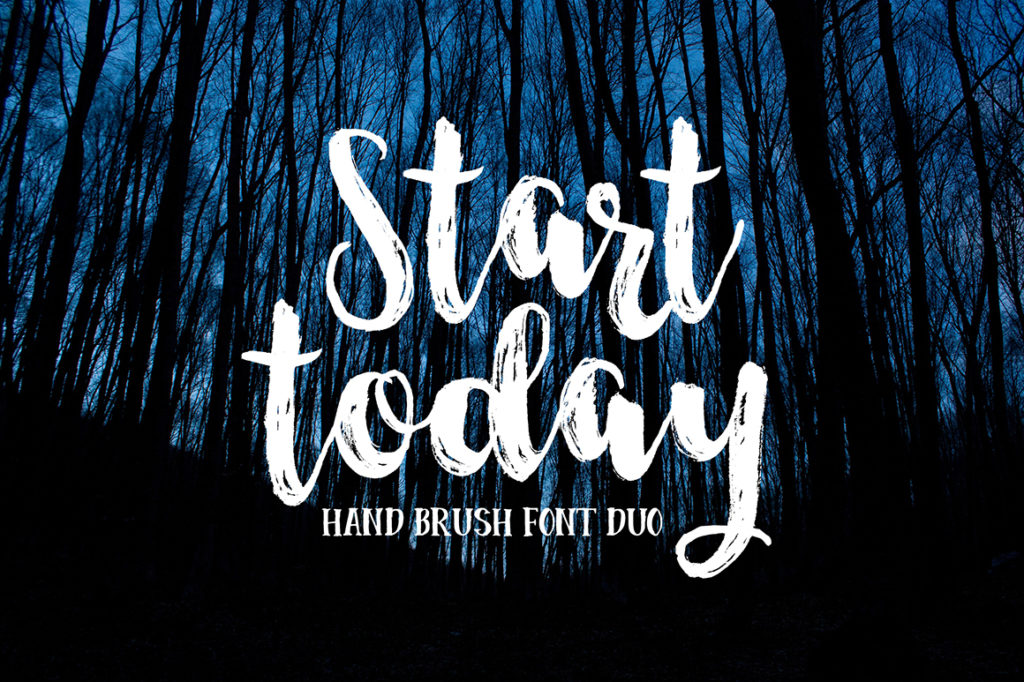
Introducing Start Today Font, a Remarkable Handcrafted Masterpiece:
Embark on a captivating journey of creative expression with Start Today Font, the script font family that ignites your imagination and sparks your creativity. Step into a world of endless possibilities, where your imagination roams free and your designs take flight.
With its captivating charm and effortlessly elegant style, Start Today Script effortlessly adds a touch of timeless beauty to your projects. Its carefully crafted handwritten strokes evoke a sense of warmth and authenticity, drawing your audience in with their genuine allure. Perfect for branding, invitations, and personal touches, Start Today Script transforms your words into heartfelt expressions that resonate with your audience.
Experience the versatility of Start Today Sans, the modern and clean counterpart to Start Today Script. Its crisp lines and sharp edges lend a contemporary touch to your designs, making it ideal for headlines, logos, and editorial projects. Let the clarity of Start Today Sans elevate your message and leave a lasting impression.
For those seeking a bold and impactful statement, Start Today Extra is the perfect choice. With its exaggerated strokes and dynamic presence, Start Today Extra commands attention and makes your words pop. From social media graphics to posters and marketing materials, Start Today Extra ensures your message stands out from the crowd.
With Start Today Font family, you'll discover a world of creative possibilities. Write your story with the elegance of Start Today Script, capture attention with the clarity of Start Today Sans, or make a bold statement with the impact of Start Today Extra. Let your imagination flourish and let Start Today Font take you on an unforgettable creative journey.